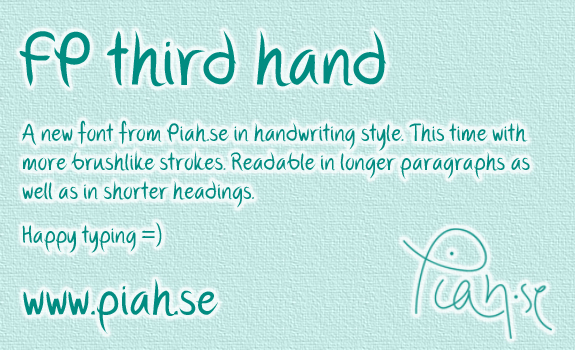
A new font from Piah.se in handwriting style. This time with more brushlike strokes. Readable in longer paragraphs as well as in shorter headings. Happy typing =) |